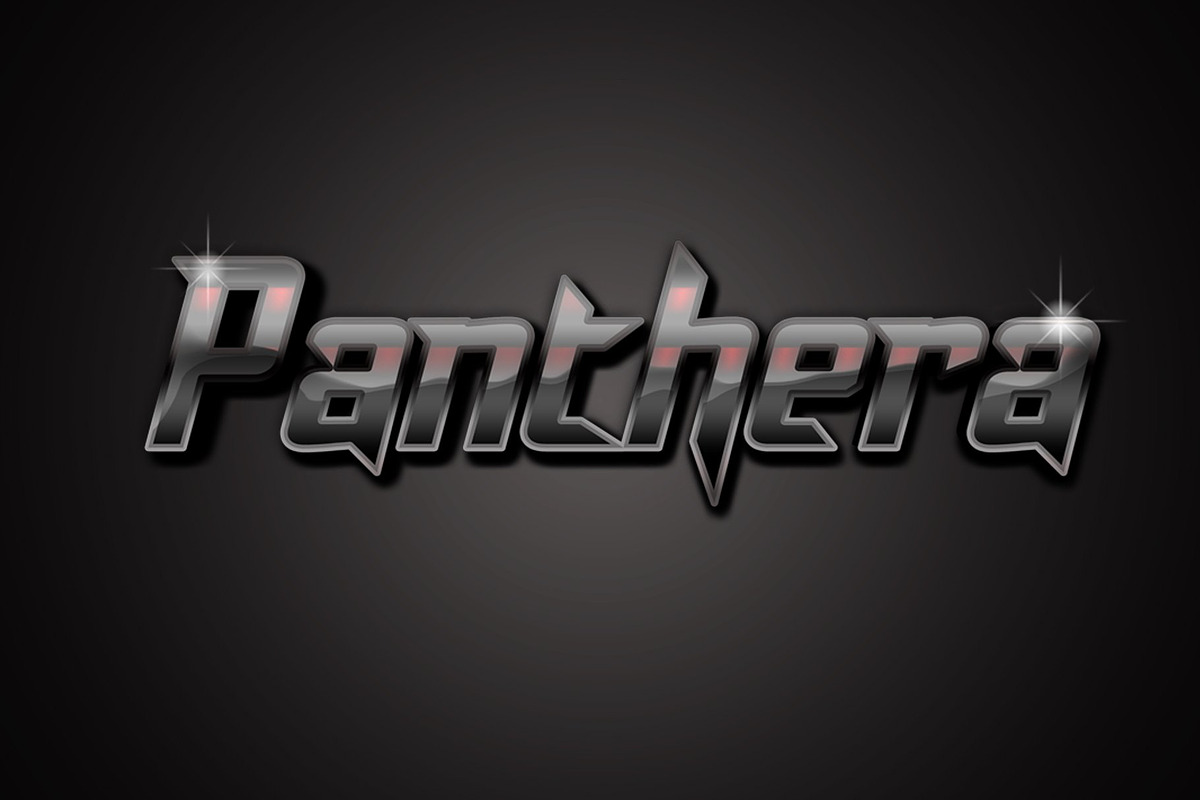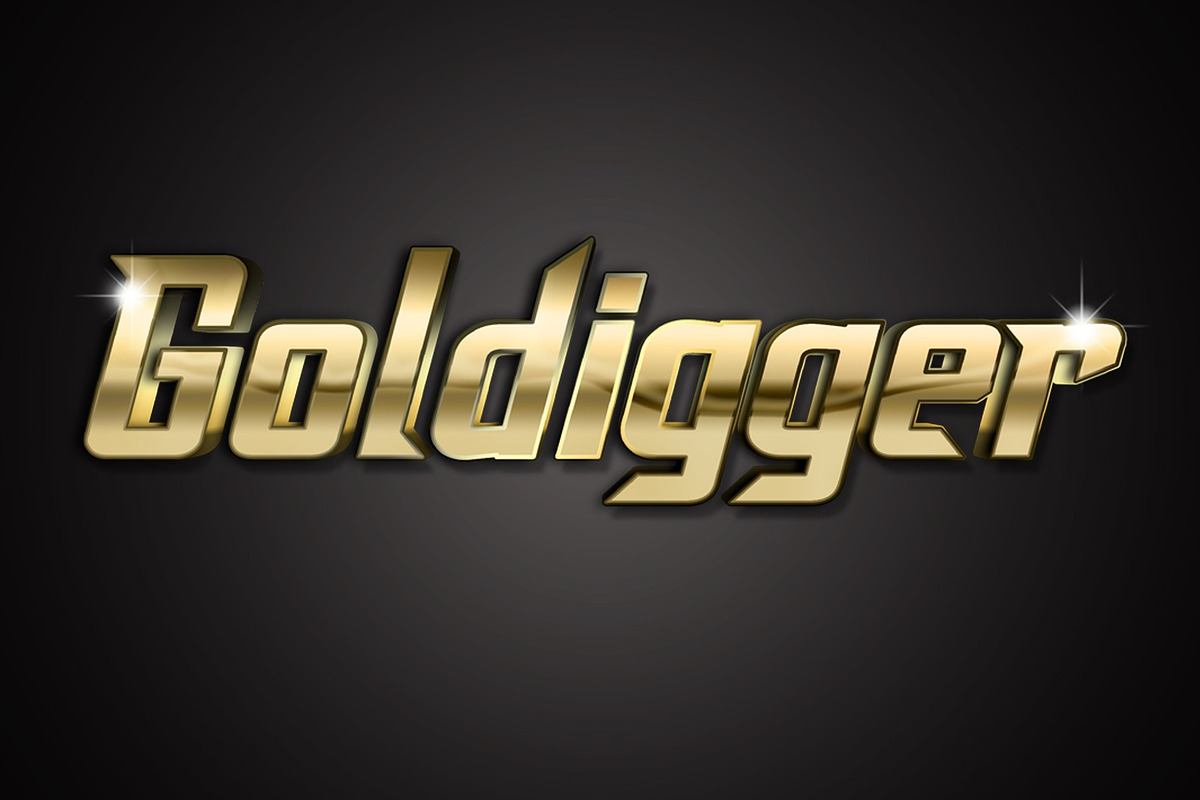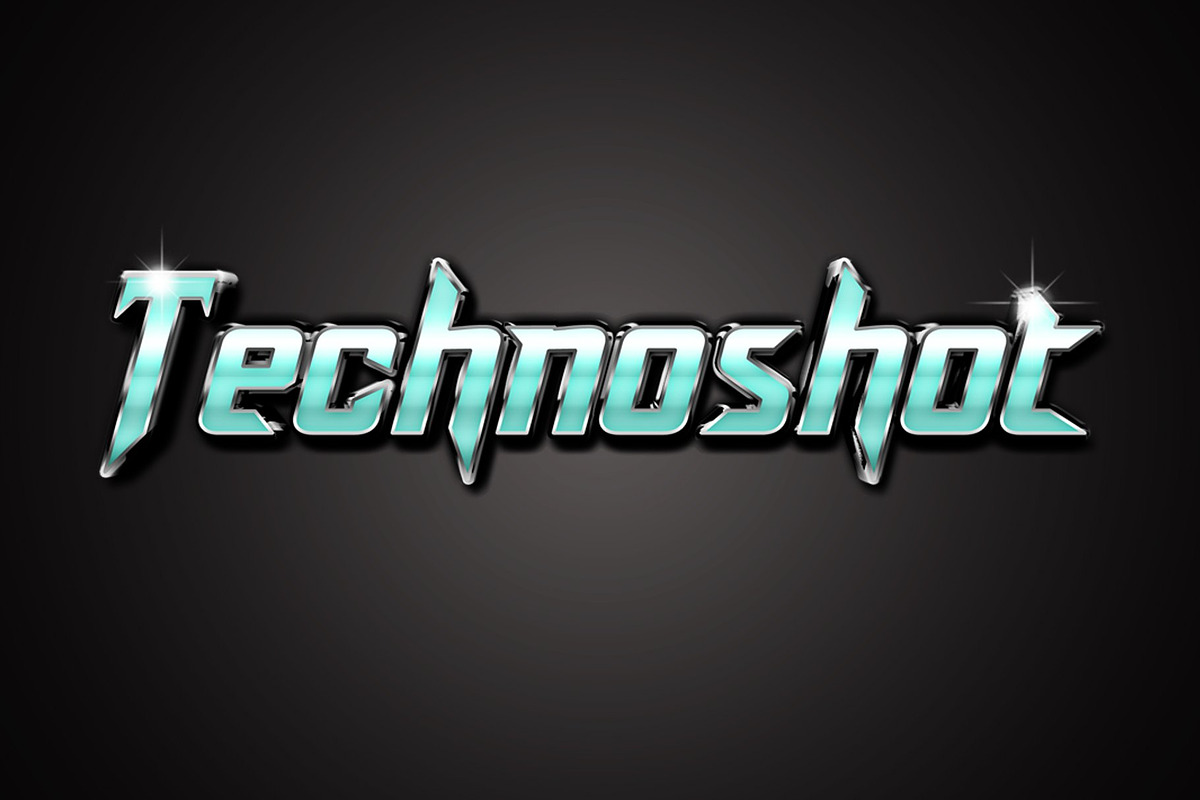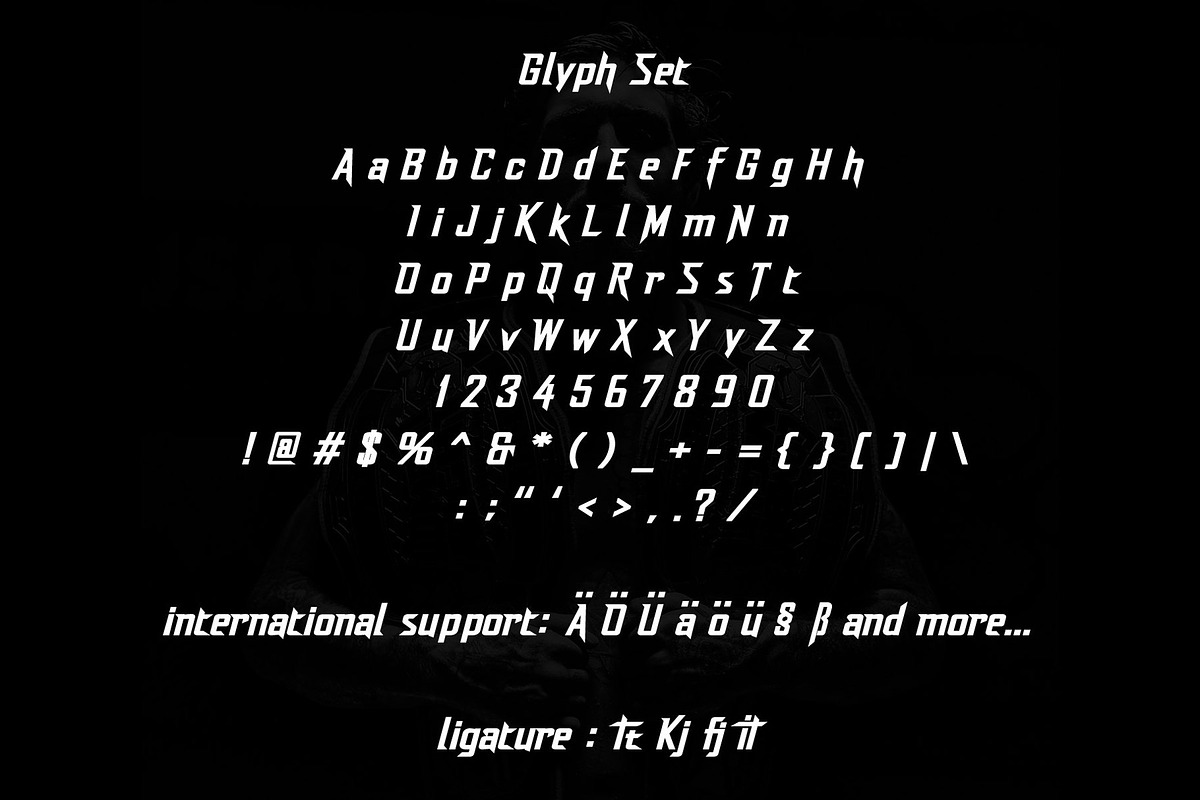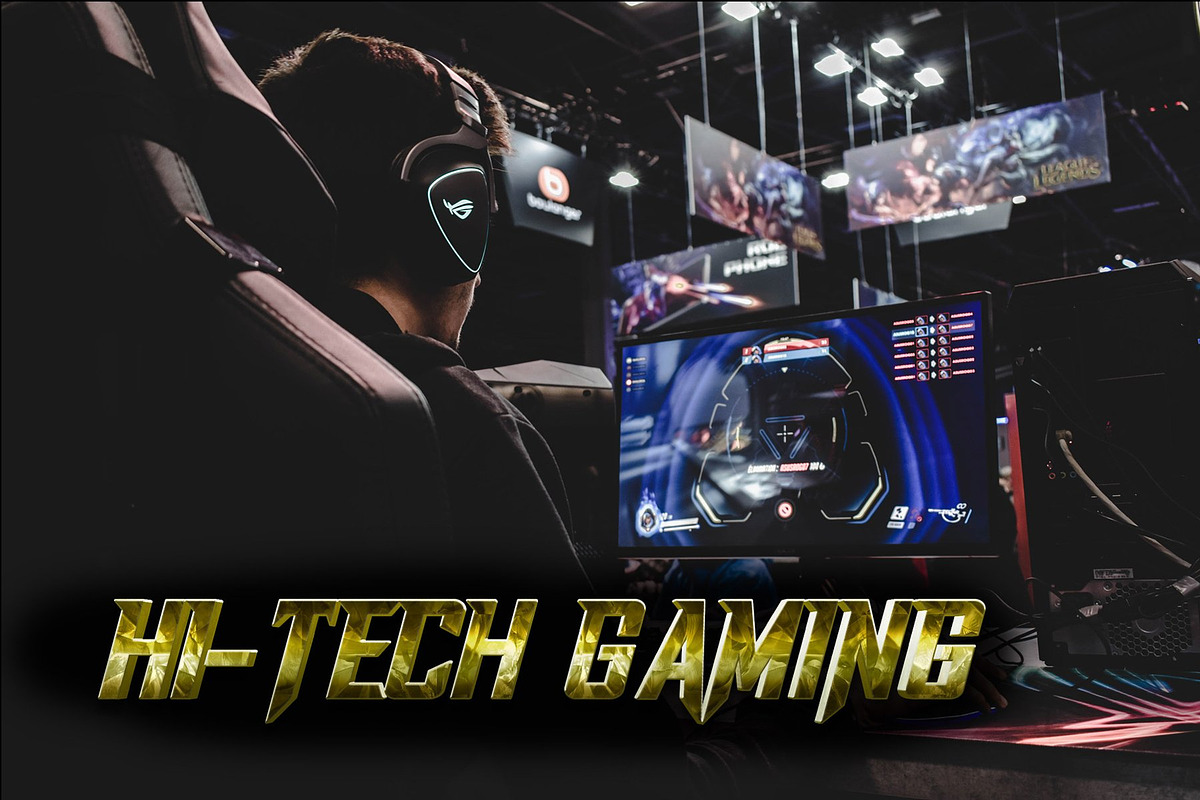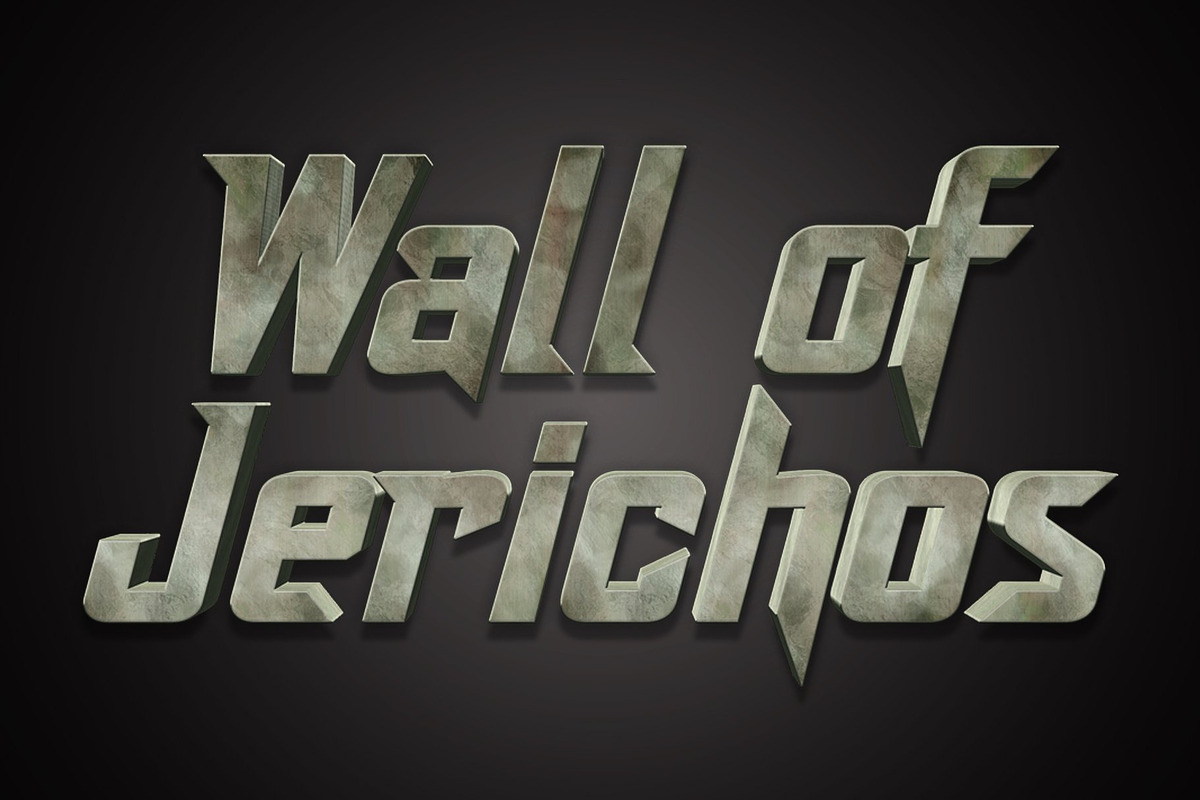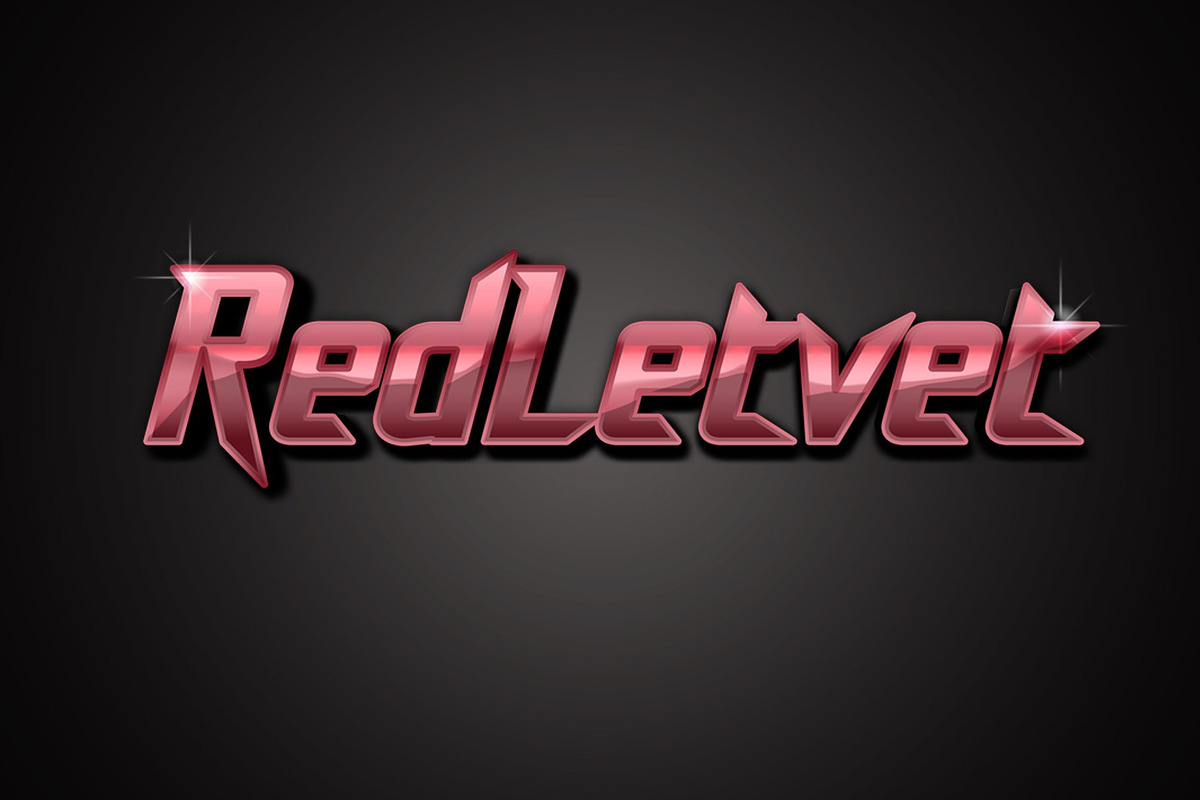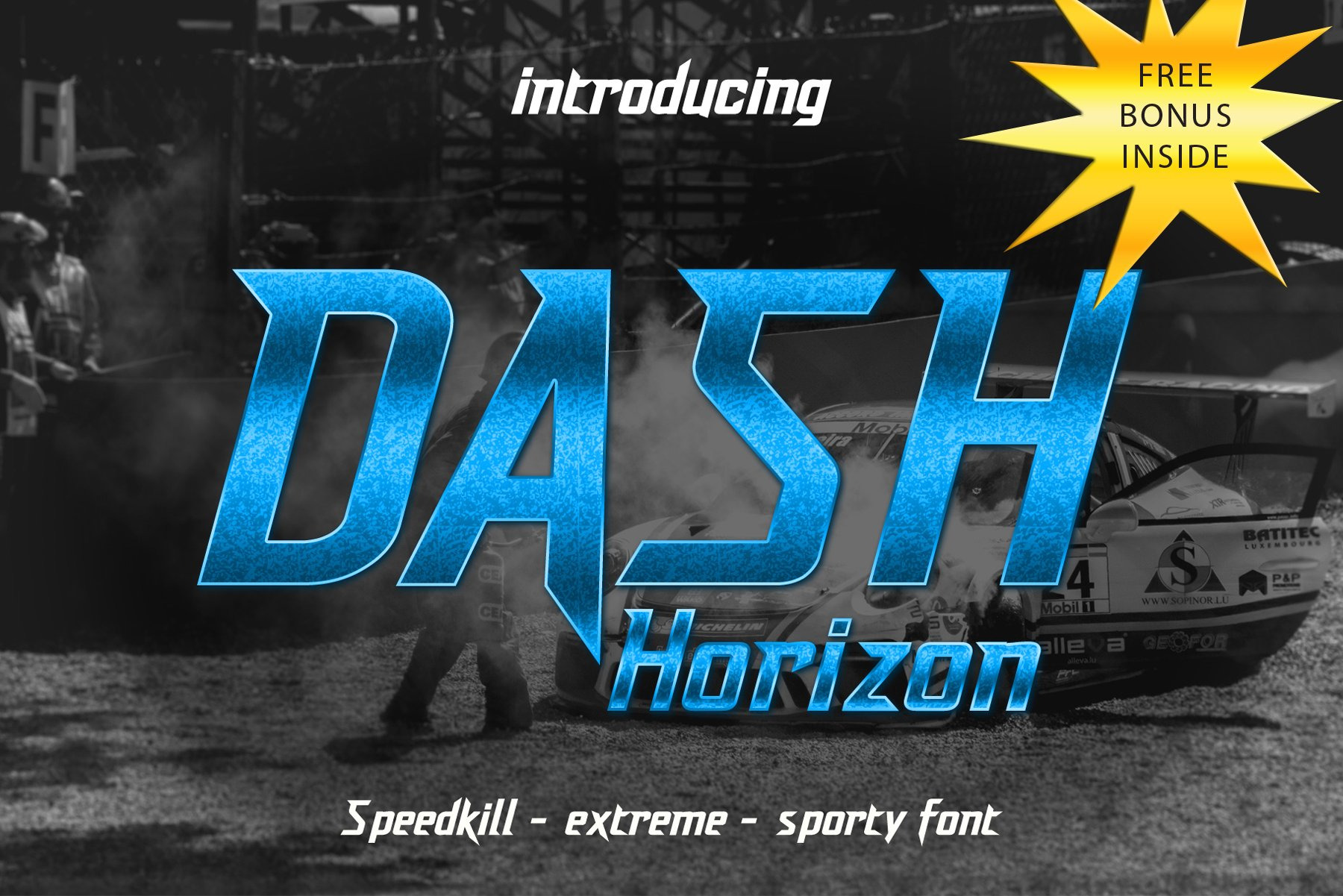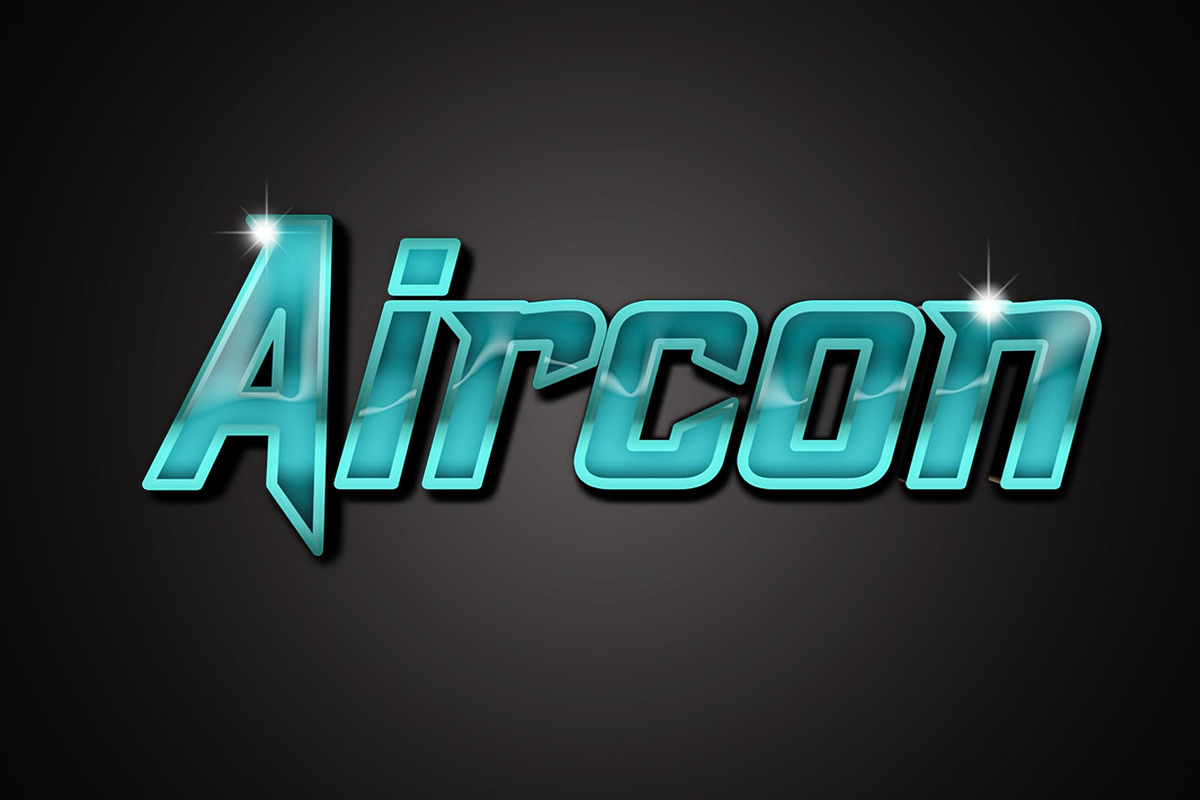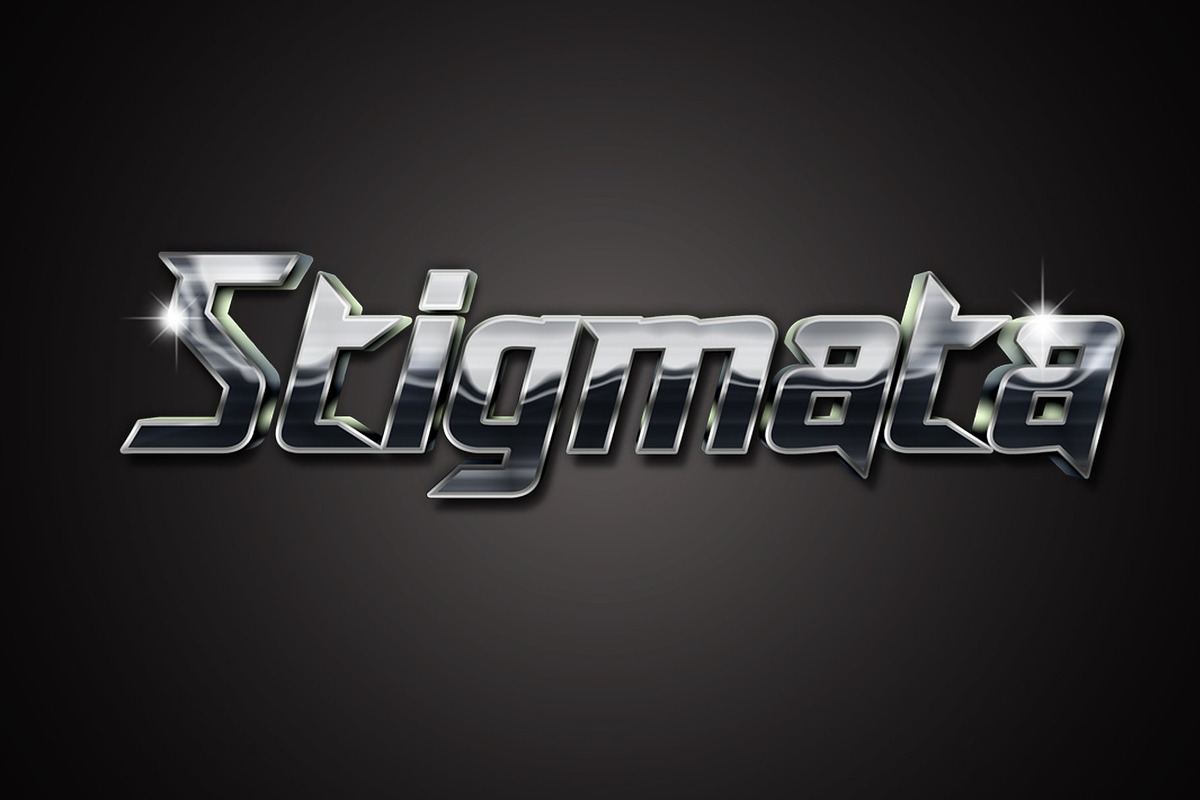
DashHorizon Sporty Racing Font
Introducing the Dash Horizon, Sporty Racing Font Style, the ultimate digital font for all your sporty and racing-related designs. This font is perfect for creating a bold, dynamic look in any project. Whether you're working on a website, presentation, or graphic design project, Sporty Racing Font Style will add a touch of speed and excitement to your design.
The Dash Horizon, Sporty Racing Font Style is a versatile font that can be used for various design projects such as:
Racing-related designs like motorsports, cars, and motorcycles
Sports-related designs like teams, clubs, and events
Outdoor and adventure-related designs like hiking, camping, and extreme sports.
Branding and packaging design for sportswear, sport equipment and other sport-related products
The Dash Horizon, Sporty Racing Font Style is designed with a sporty and dynamic style, making it perfect for adding a sense of motion and speed to your designs. This font is also fully customizable, allowing you to adjust the size, spacing, and color to fit your design needs. With Sporty Racing Font Style, you'll have access to a professional-quality font that will give your designs a sporty and dynamic look.